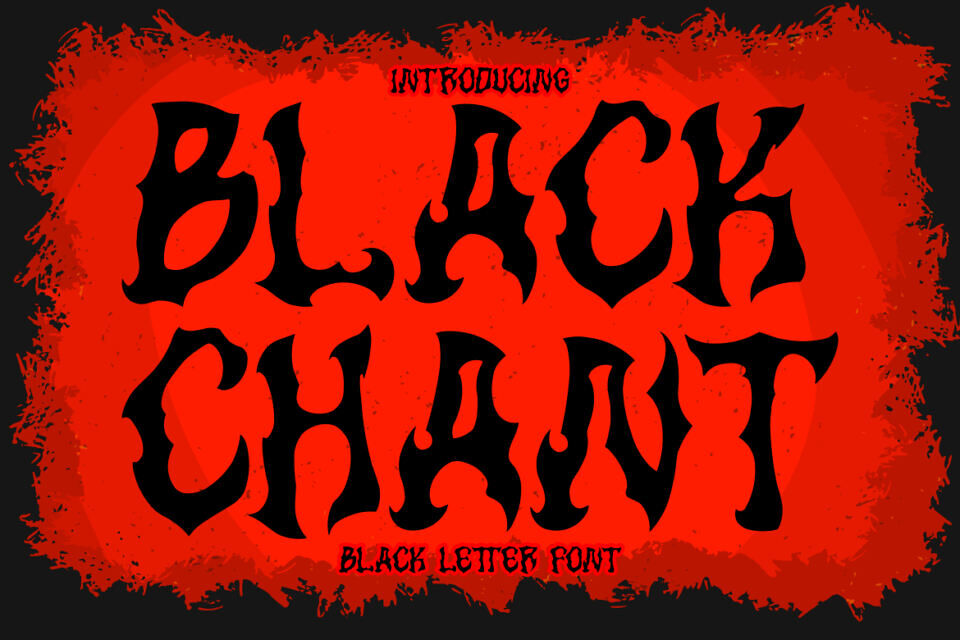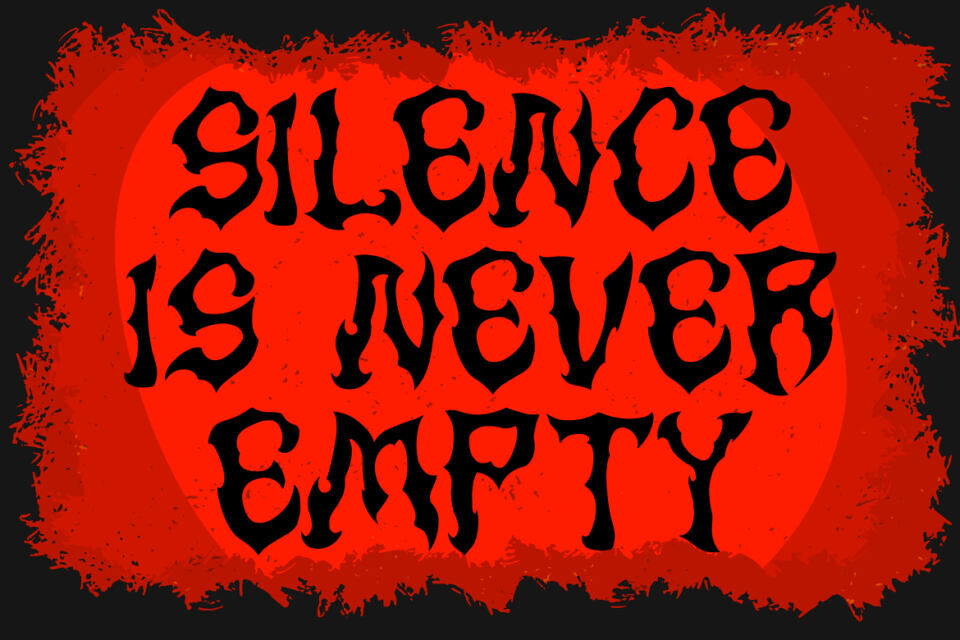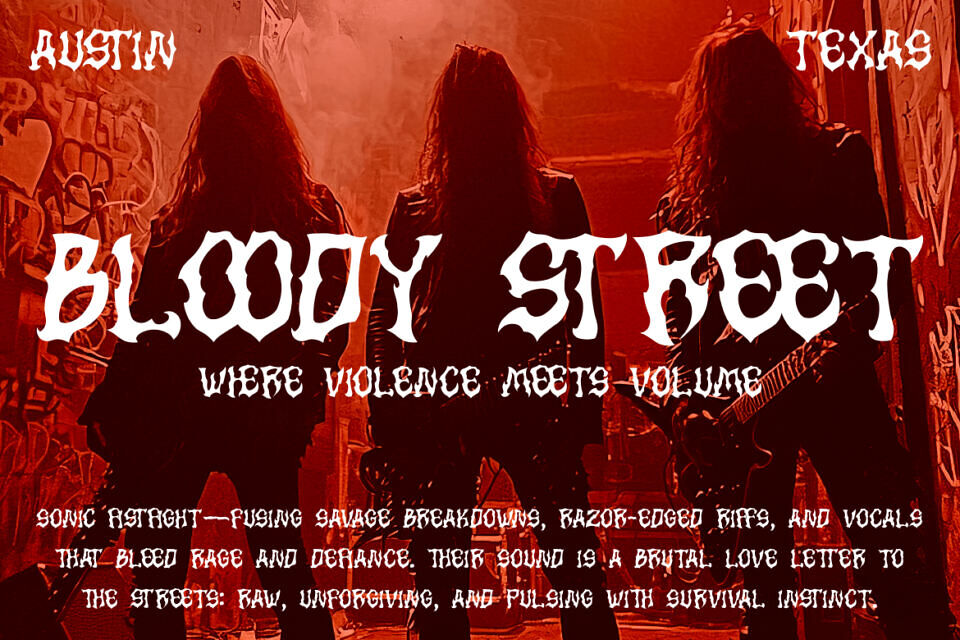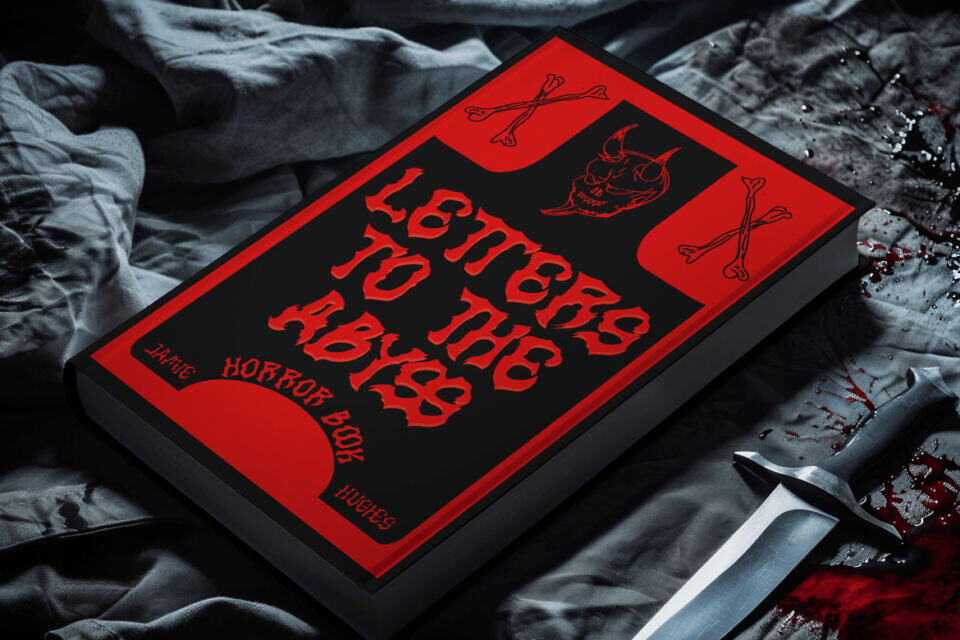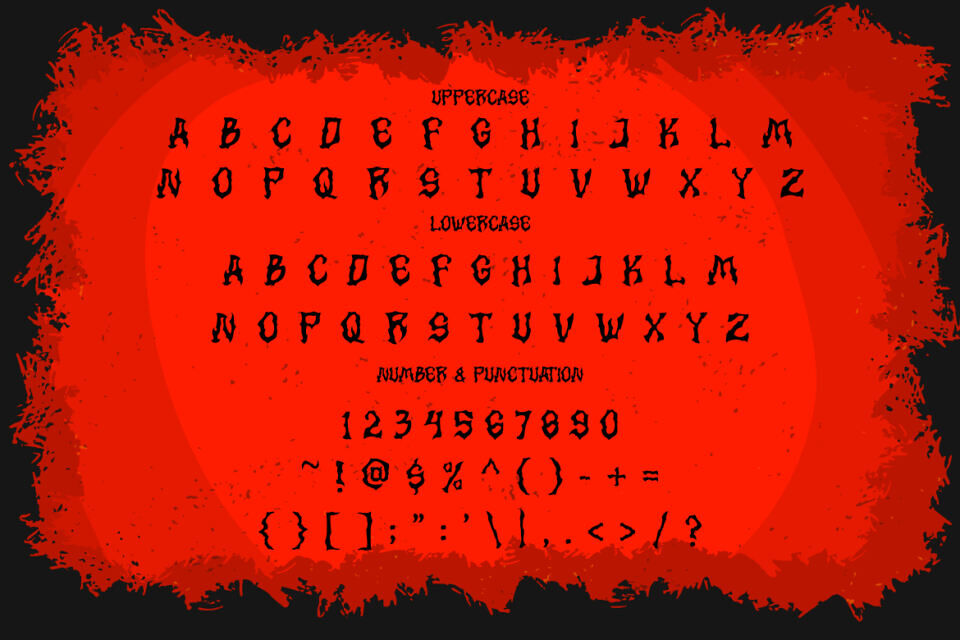
Black Chant Font
Unleash the raw force of rebellion and darkness with Black Chant, a commanding blackletter display font designed to channel the energy of underground music, horror aesthetics, and gothic edge. Each letter is intricately crafted with jagged, flame-like serifs and aggressive curvature that evoke ritualistic chants, occult vibes, and roaring metal riffs.
Its dramatic presence is instantly felt, making it ideal for projects that demand attitude, defiance, and striking visual storytelling. From band logos and album covers to horror movie titles and rock event posters, Black Chant dominates the layout with unapologetic charisma. The heavy-weight forms paired with ink-blot-style distortions make this typeface the ultimate weapon for designers who dare to be bold.
This typeface includes a full uppercase and lowercase set, numerals, punctuation, and multilingual support. The textured forms reflect an infernal aesthetic that pairs perfectly with red-black palettes and grunge backdrops. Whether you’re branding a death metal band, creating book covers in the horror genre, or crafting daring streetwear visuals, Black Chant offers a voice that screams with intensity.